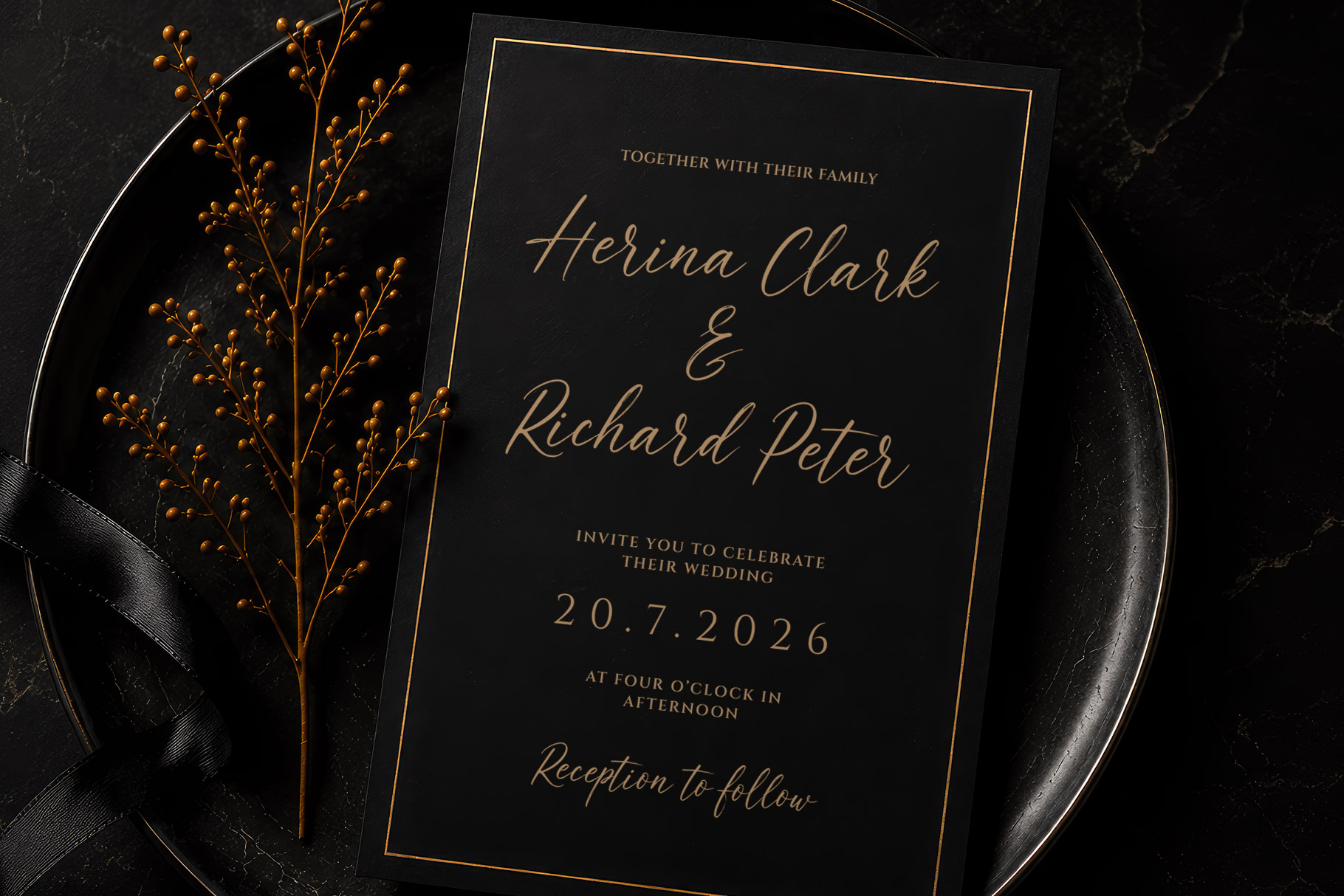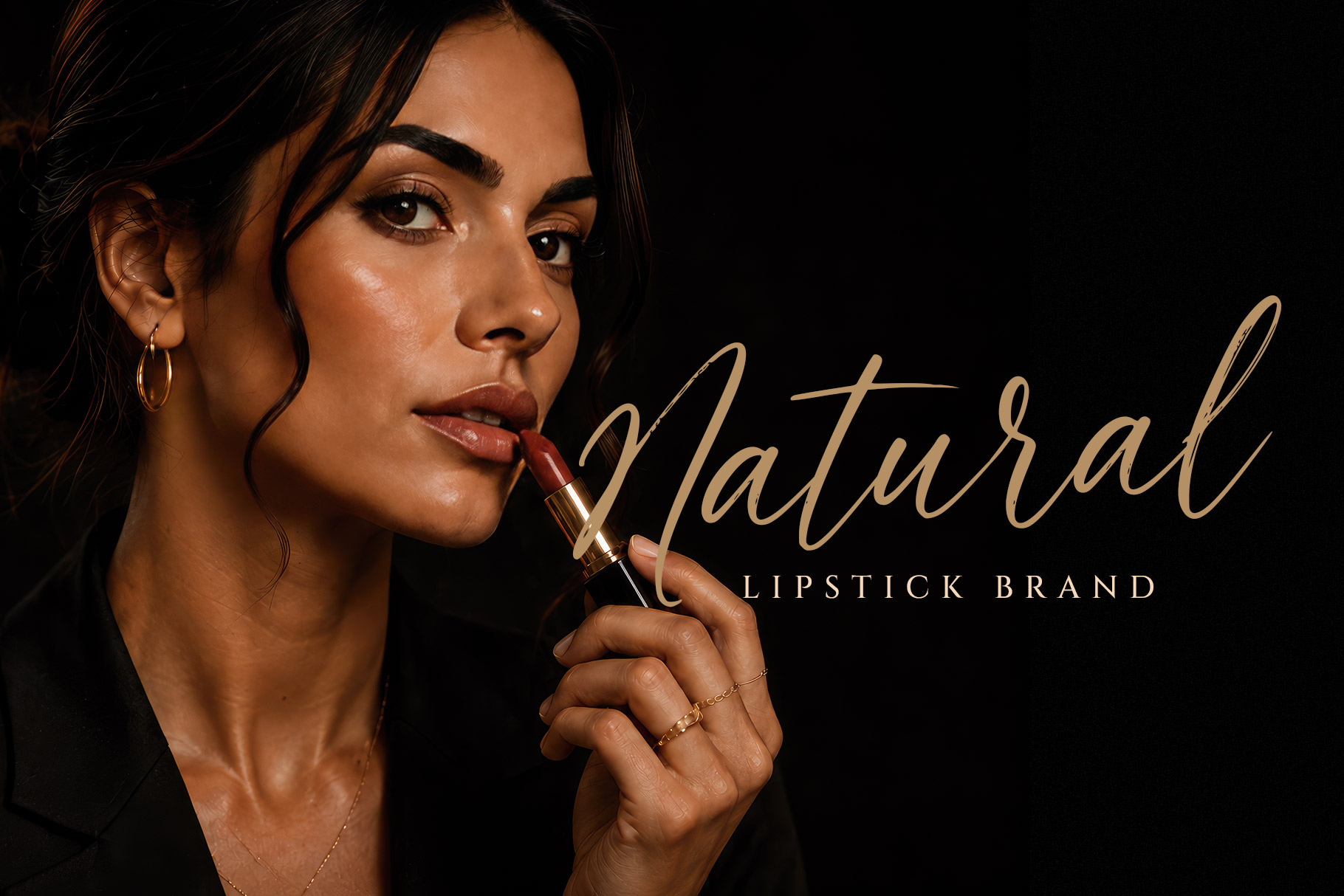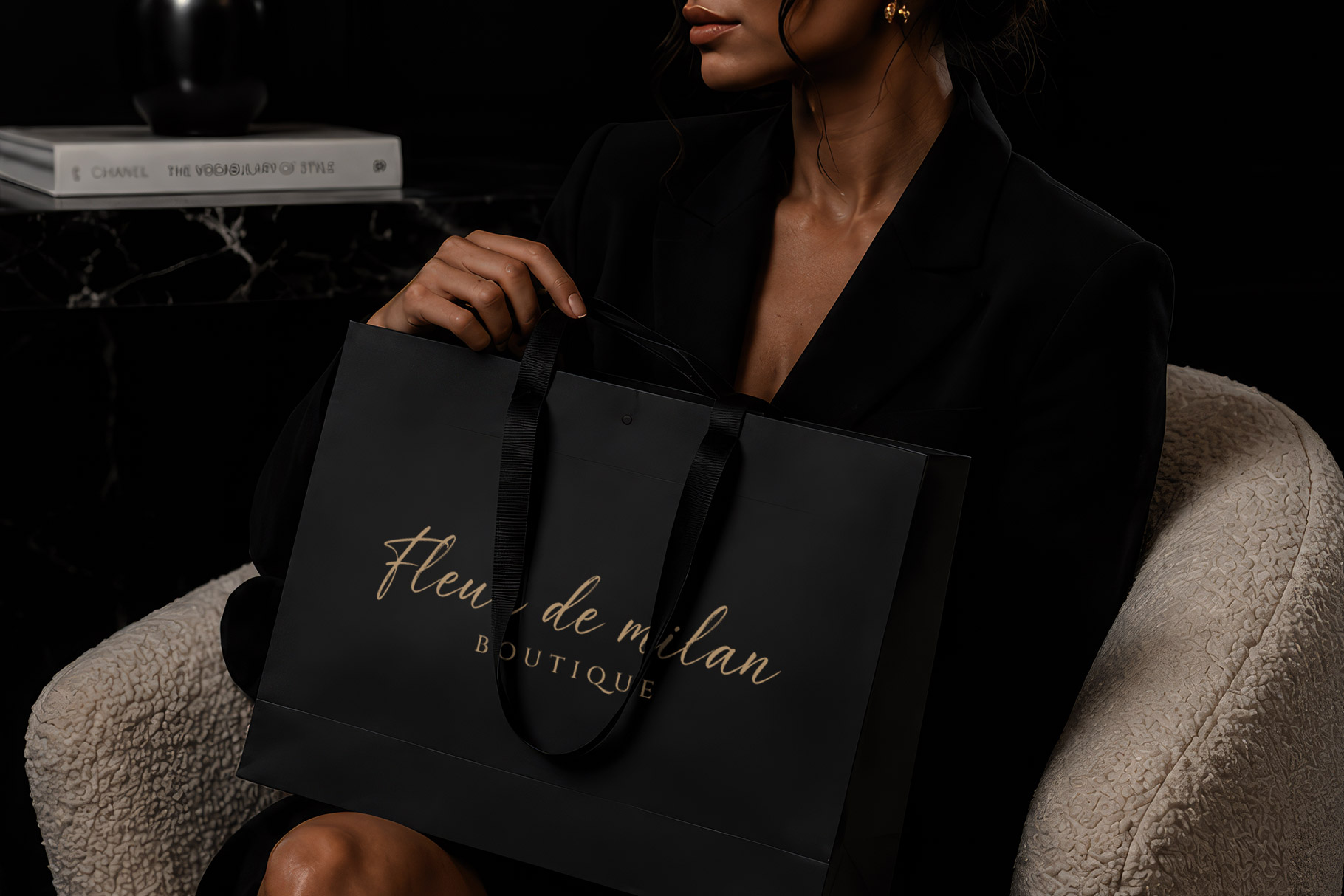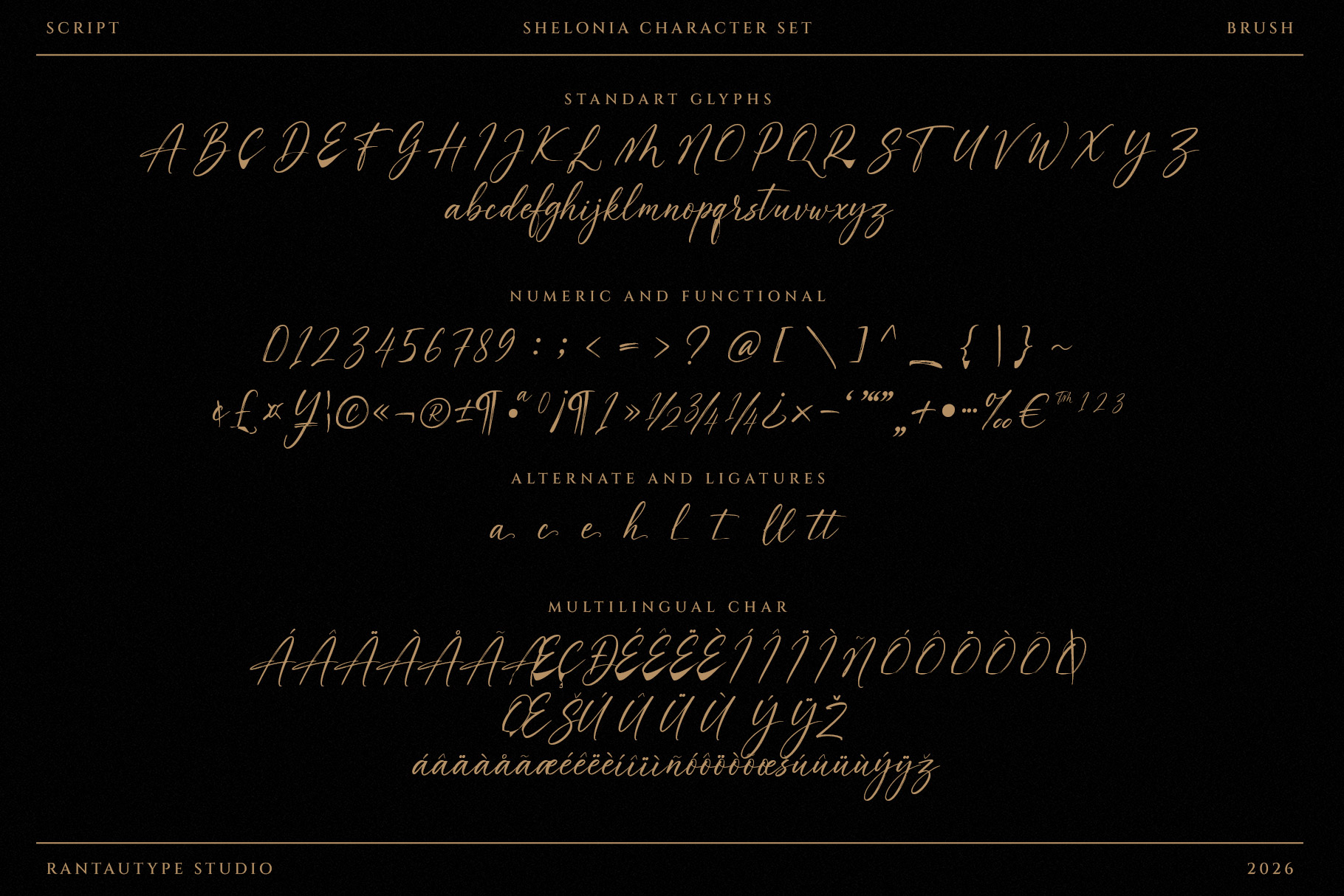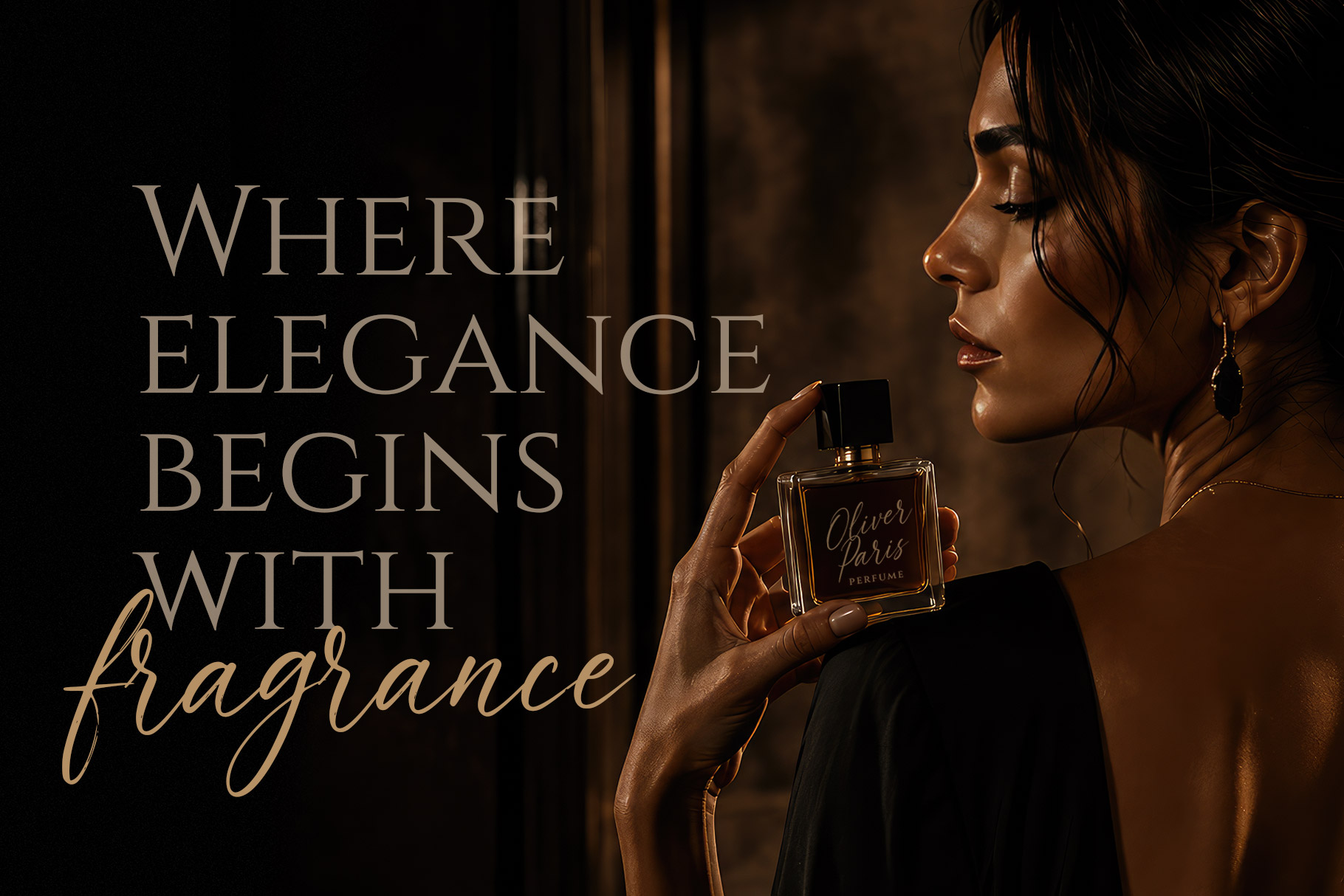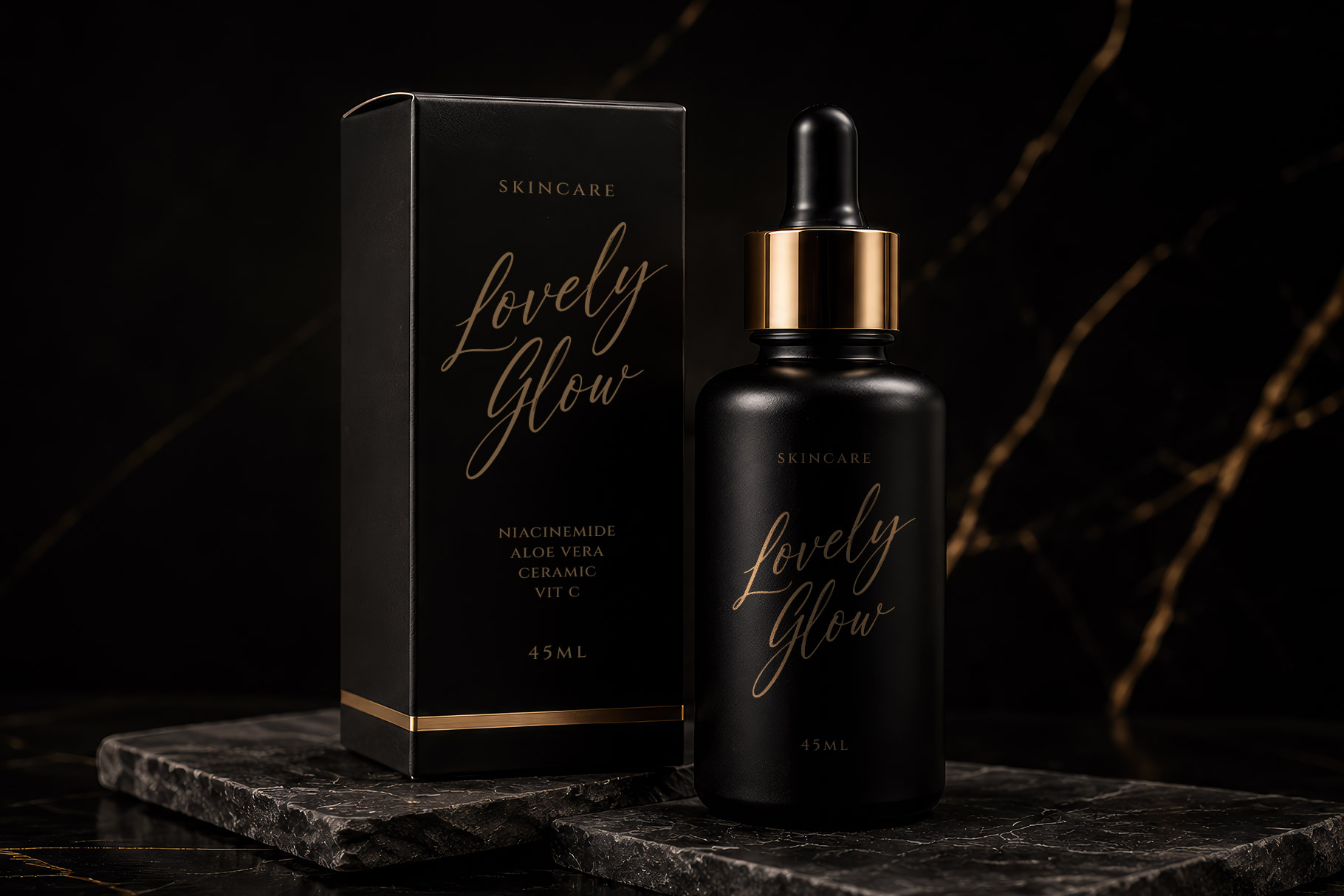
Shelonia is a sophisticated script brush font that blends effortless handwriting with refined elegance. Shelonia is a perfectly choice for any creative endeavor, creating, modern, lifestyle design such as logotype, title, cover, branding, invitations, wedding designs, display and magazine, social media posts, advertisements, printed quotes, product packaging, corporate brand, product designs, labels, photography, watermarks, special events and any other project with elegant touch.
Shelonia Script Brush Font